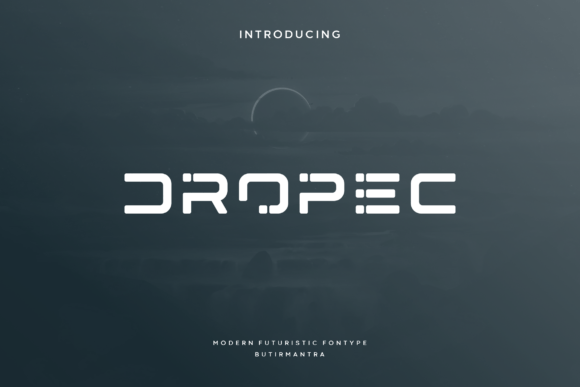
Unlocking the Perfect Headline with Dropec Font
Have you ever stared at a blank page, waiting for that one idea to strike and make your design truly shine? It’s that moment when you feel like you’re on the verge of something special – the moment when the perfect font can make all the difference.
Enter Dropec Font, a sleek and modern display font designed to elevate your headlines, branding, and logo designs. Its simple yet elegant look is a breath of fresh air, making it a valuable addition to any designer’s toolkit. With its smooth angular shape, Dropec Font exudes a sense of sophistication and style, perfect for making a lasting impression.
- Unique Characteristics: The font features a unique blend of modern and vintage elements, with intricate details and subtle texture, making it perfect for creative projects and designs that require a touch of elegance.
Dropec Font Review
As a designer, I’ve had the chance to work with a wide range of fonts, and I’m here to share my honest thoughts on Dropec Font.
- ✨ Unique style: Dropec Font has a distinctive, modern aesthetic that sets it apart from other sans-serif fonts.
- ✨ Clear legibility: Even at smaller sizes, the font remains easy to read, making it suitable for body text and headings.
- ✨ Versatility: Dropec Font comes in a range of weights, from light to bold, allowing for a high degree of customization.
- ⚠️ Limited language support: While Dropec Font includes a decent range of language support, it’s not comprehensive, which may limit its use for international projects.
- ⚠️ Limited character set: The font’s character set is not as extensive as some other fonts, which may cause issues with special characters or symbols.
While Dropec Font has some limitations, its unique style and clear legibility make it a solid choice for modern designs. However, its limited language support and character set may restrict its use in certain projects. Ultimately, it’s a great option for designers who need a clean, modern sans-serif font for their work.